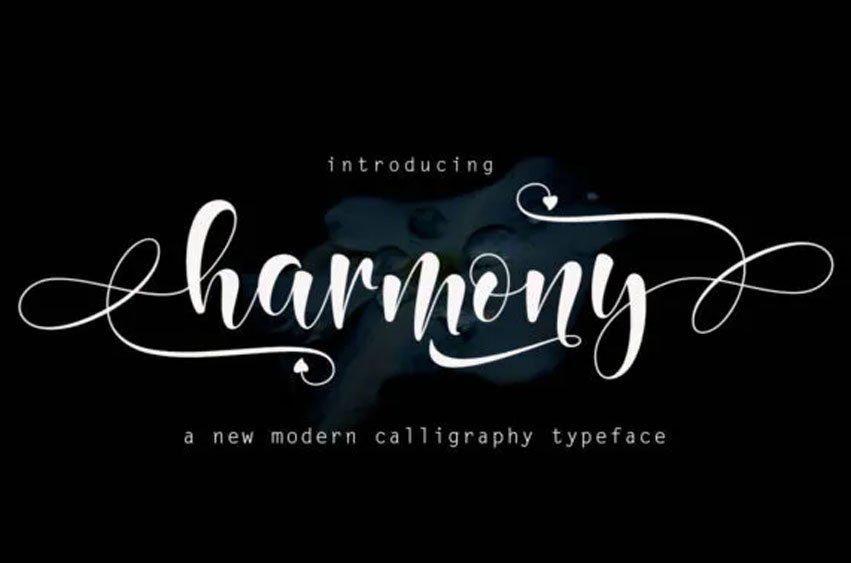
Harmony Font
Harmony Font is a stylish calligraphy font.
It features a varying baseline and is perfect for adding a classic and elegant touch to your headlines, signatures, logos, wedding invitations, t-shirts, letterheads, and much more!